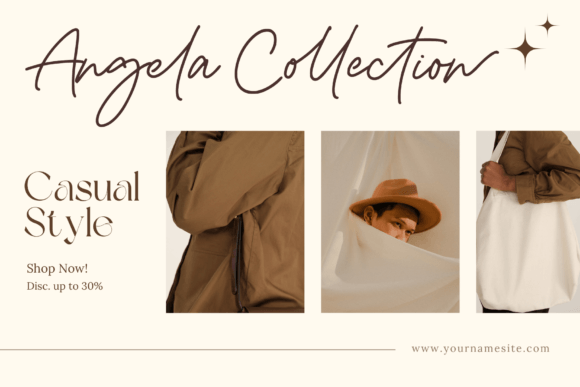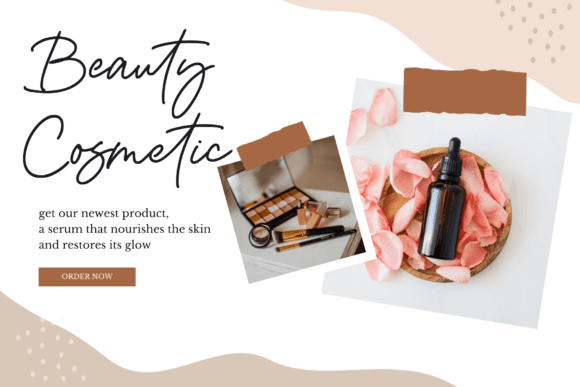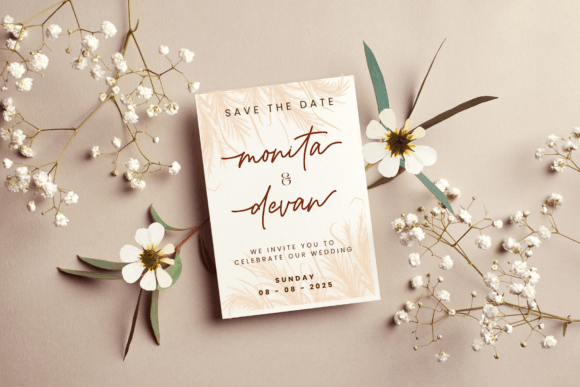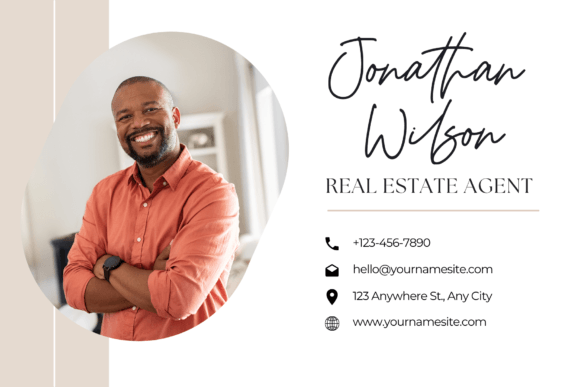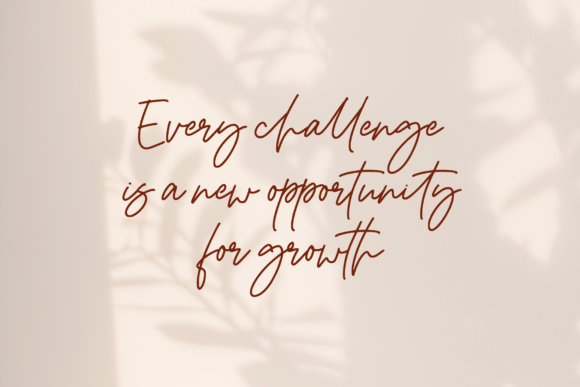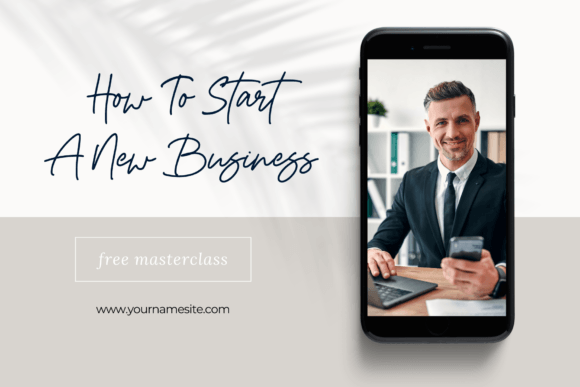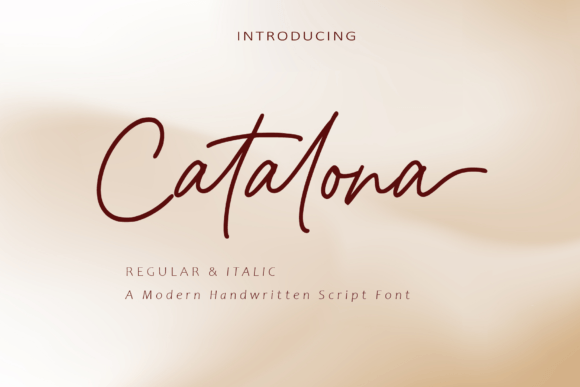
Catalona Font: Elevate Your Designs with Elegant Handwritten Script
In the world of typography, a well-crafted font can make all the difference in elevating your design to the next level. For designers and crafters seeking a touch of elegance and sophistication, Catalona Font is an exceptional choice. This beautiful handwritten script typeface, carefully crafted by experts, is designed to bring a natural, charming handwriting feel to your projects.
The Beauty of Catalona Font
Catalona Font boasts a stunning, organic appearance that exudes warmth and personality. Its unique, flowing script style makes it perfect for designs that require a touch of whimsy and romance. The font comes in two styles: Regular and Italic, providing versatility and flexibility for a wide range of applications. Whether you’re working on branding projects, logos, wedding designs, or social media posts, Catalona Font is sure to impress.
Key Features of Catalona Font
- Natural and Beautiful Handwriting Feel: Catalona Font is designed to mimic the fluidity and imperfections of handwritten script, giving your designs a personal and relatable touch.
- Ligature and Tail Options: The font features ligatures, beginning and ending tails, which add a touch of sophistication and elegance to your designs.
- PUA Encoded: Catalona Font is PUA (Private Use Area) encoded, making it easy to access all the amazing glyphs and ligatures.
- Versatile and Adaptable: The font is suitable for a wide range of applications, including branding projects, logos, wedding designs, social media posts, advertisements, product packaging, product designs, labels, photography, watermark, invitation, stationery, and more.
Why Choose Catalona Font?
Catalona Font offers a unique combination of beauty, versatility, and functionality, making it an excellent choice for designers and crafters. Here are just a few reasons why you should consider using Catalona Font in your next project:
- Add a Personal Touch: With Catalona Font, you can add a personal and relatable touch to your designs, setting them apart from the competition.
- Elegant and Sophisticated: The font’s elegant and sophisticated appearance makes it perfect for designs that require a touch of luxury and refinement.
- Easy to Use: Catalona Font is PUA encoded, making it easy to access all the glyphs and ligatures, even for those without extensive design experience.
Applications of Catalona Font
Catalona Font is an incredibly versatile typeface that can be used in a wide range of applications, including:
- Branding Projects: Create a lasting impression with a unique and memorable brand identity.
- Wedding Designs: Add a touch of romance and elegance to wedding invitations, stationery, and decorations.
- Social Media Posts: Elevate your social media presence with beautiful, eye-catching graphics.
- Advertisements: Create stunning ads that capture the attention of your target audience.
- Product Packaging: Add a personal touch to your product packaging and make it stand out on store shelves.
In conclusion, Catalona Font is a stunning handwritten script typeface that offers a unique combination of beauty, versatility, and functionality. With its natural, charming handwriting feel, elegant and sophisticated appearance, and ease of use, Catalona Font is an excellent choice for designers and crafters seeking to elevate their designs. Whether you’re working on branding projects, wedding designs, social media posts, or product packaging, Catalona Font is sure to impress.